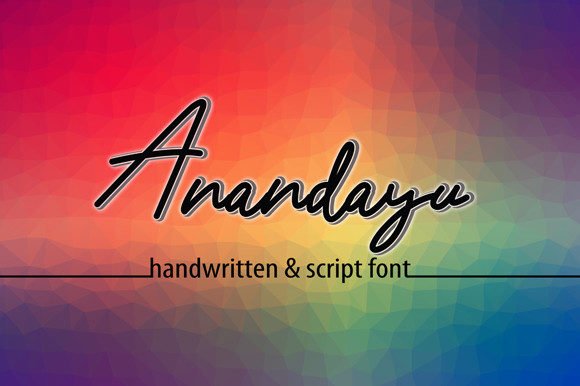
The Perfect Touch: Discovering the Elegance of the Anandayu Font
Have you ever been in the midst of a creative project, pouring over every detail, and suddenly, it all comes together in a perfect harmony of style and sophistication? That’s the moment when the right font can make all the difference. For designers, the quest for the perfect font is an ongoing journey, and today, we’re excited to introduce you to the Anandayu Font – a sweet and subtle handwritten font that’s sure to elevate your designs to new heights.
With its delicate curves and elegant flair, the Anandayu Font is the perfect addition to any design project. Whether you’re working on a wedding invitation, a branding campaign, or a social media post, this font will add a touch of class and sophistication that’s hard to find elsewhere. And the best part? It’s crafted with care to ensure maximum results, making it a valuable asset for any designer looking to take their work to the next level.
- Unique Characteristic: Anandayu Font features a unique blend of traditional and modern design elements, making it suitable for a wide range of applications, from body text to headlines.
Anandayu Font Review
As a designer, I was excited to dive into the Anandayu font and see what it has to offer. Here’s my honest review.
- Unique aesthetic: Anandayu has a distinct, modern look that sets it apart from more traditional fonts.
- High-quality glyphs: The font features crisp, well-crafted characters that make it perfect for digital use.
- Good legibility: Anandayu is easy to read, even at smaller font sizes, making it a great choice for body text.
- Limited language support: Anandayu only includes basic Latin characters, which may limit its use for languages that require more complex character sets.
- No italic or bold styles: While the font has a unique look, it would be even more versatile with additional weight and style options.
- May not be suitable for print: Anandayu’s digital design may not translate well to print materials, where a more traditional font might be a better choice.
Overall, Anandayu is a solid choice for digital projects where a modern, unique look is desired. While it may have some limitations, it’s a great option for designers looking to add some visual interest to their designs.
Tips for Getting the Most Out of Anandayu Font
Here are some tips for getting the most out of the Anandayu font:
- Use it to create a unique and eye-catching title or heading.
- Pair it with other fonts to create a visually appealing combination.
- Experiment with different font sizes and styles to add emphasis to your text.
The Anandayu font is commonly used for:
- Creating a modern and stylish title or heading.
- Designing a logo or brand identity.
- Adding a
Compared to Anandayu Font, Noto Sans has a more minimalist design, which may appeal to designers who prefer a simpler aesthetic. However, Anandayu Font has a unique, hand-drawn feel that Noto Sans lacks.
Compared to Anandayu Font, Lato has a more elegant and sophisticated design, which may appeal to designers who want a font that’s a bit more refined. However, Anandayu Font has a unique, handwritten feel that Lato lacks.